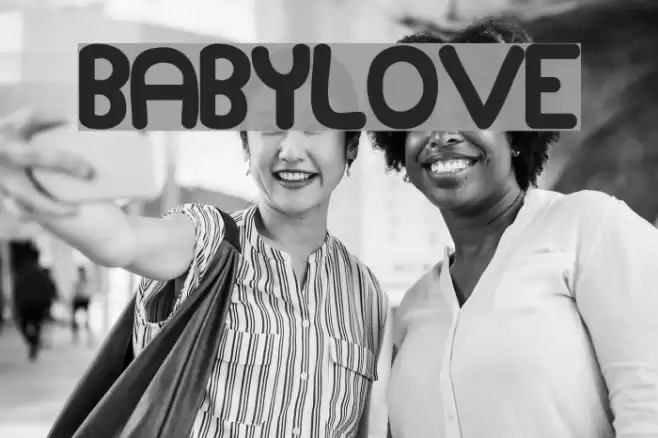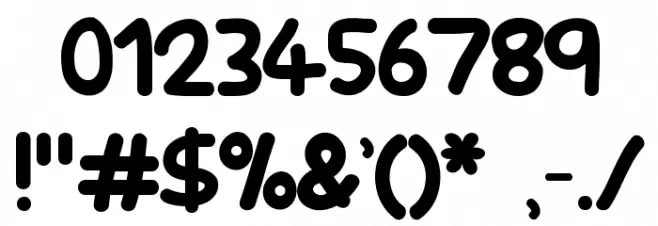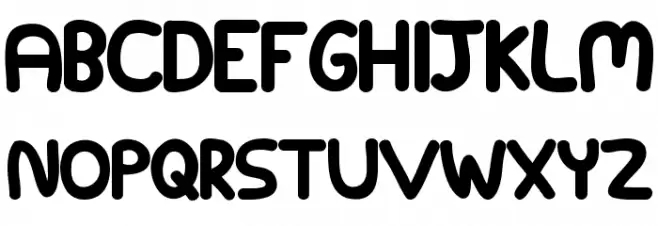
Babylove Font
Babylove Description
This playful and rounded font exudes a friendly and approachable vibe, making it ideal for projects that aim to convey warmth and fun. The characters are bold and slightly condensed, with a consistent stroke width that gives the font a uniform appearance. The rounded edges and smooth curves contribute to its soft and inviting look, making it suitable for children's books, playful branding, or any design that requires a touch of whimsy. The font maintains a medium contrast, ensuring readability while retaining its unique style. Its versatility allows it to be used in various contexts where a casual and lighthearted tone is desired.
A playful, rounded font with a friendly and approachable style from Valentine's Day fonts.
- Proposed Projects: Children's books, playful branding, casual invitations, greeting cards.
- Width: Condensed
- Overall Style: Playful, Casual
- Use Case: Headlines, Logos, Informal Text